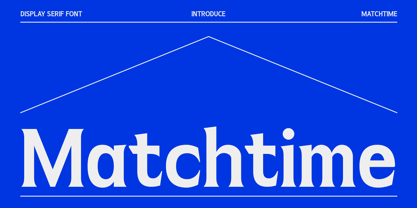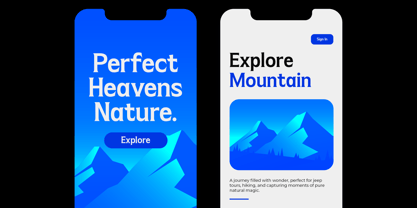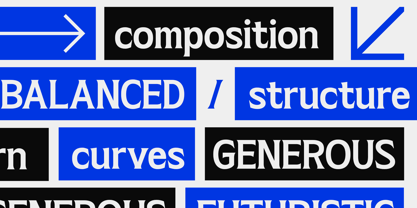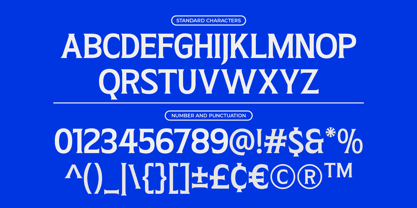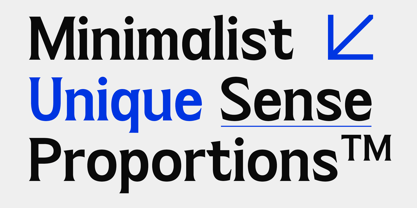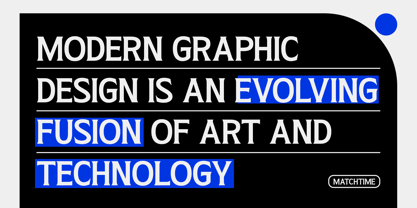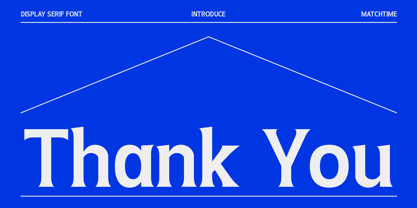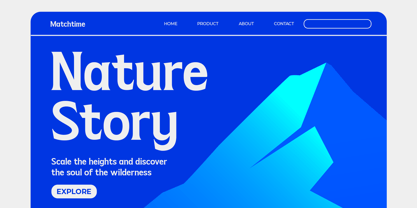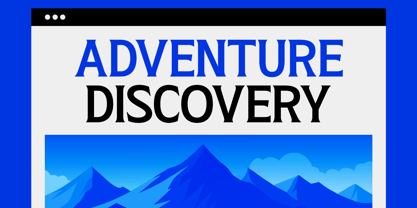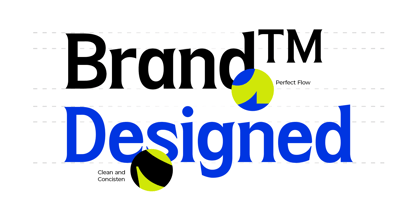
Matchtime
Matchtime is a refined display serif font that combines modern sophistication with timeless editorial elegance. Featuring high-contrast strokes, graceful curves, and stylish sharp serifs, this typeface delivers a luxurious and contemporary visual identity perfect for premium branding and creative layouts. Designed with a minimalist yet expressive character, Matchtime works beautifully for fashion campaigns, magazine headlines, luxury packaging, beauty brands, website hero sections, social media graphics, and upscale logo design. Its balanced proportions and artistic letterforms create a polished aesthetic that feels both classic and fresh, making it an excellent choice for designers seeking an elegant serif with strong visual impact.